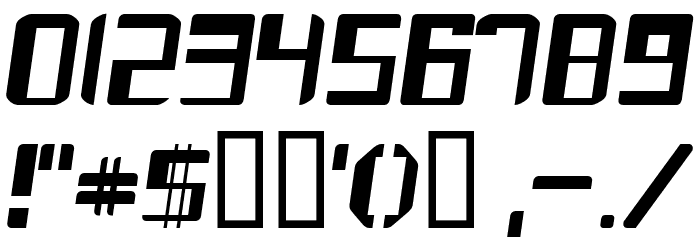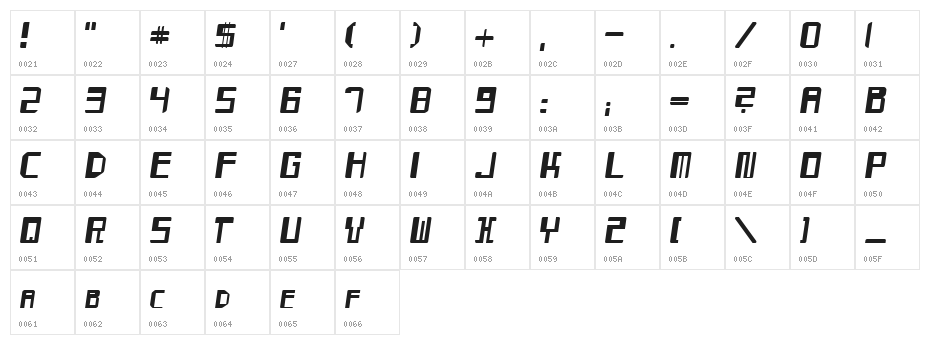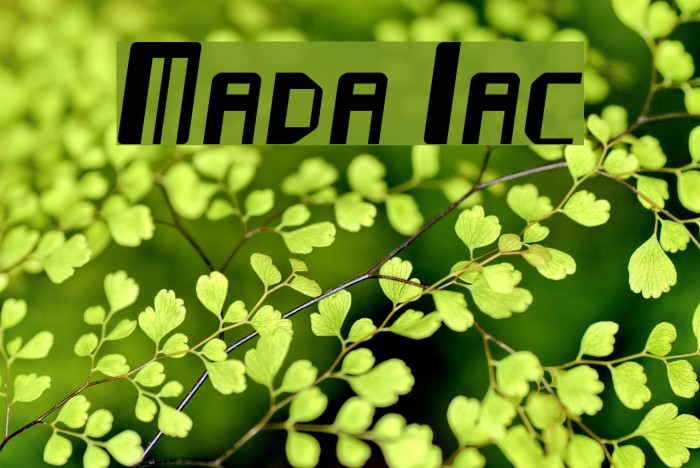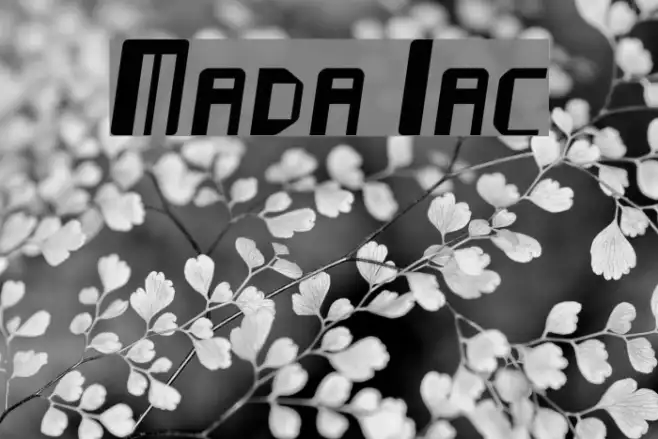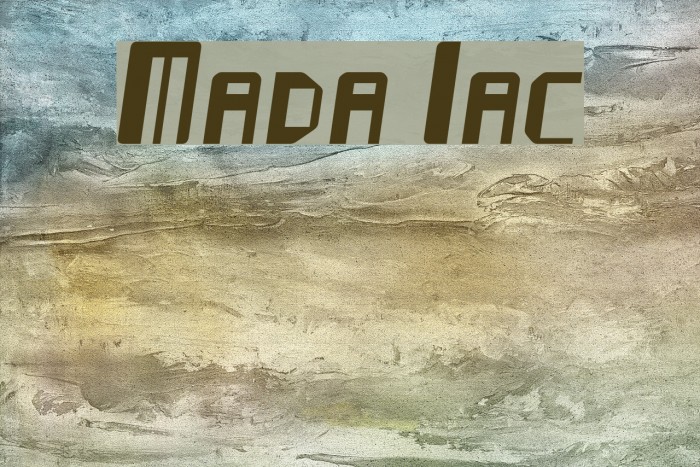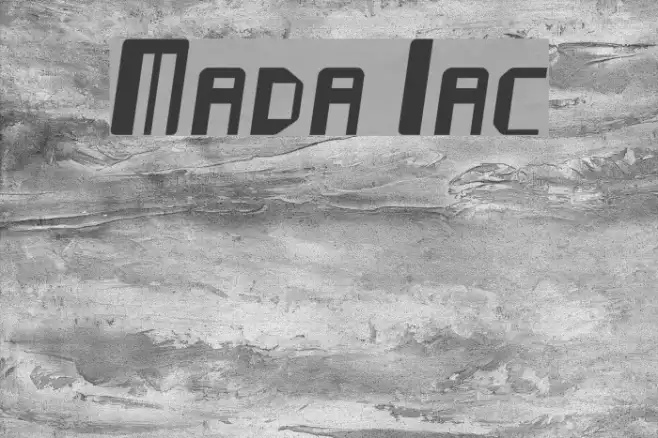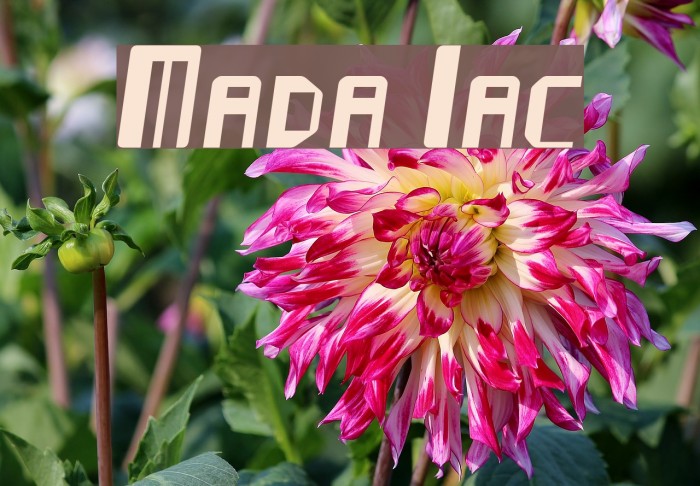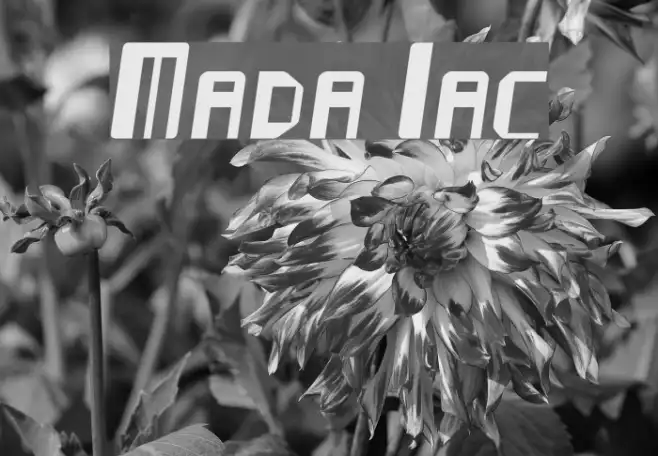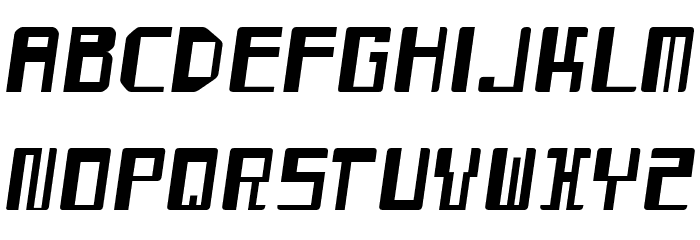
Mayday Italic Font
Mayday Italic Description
This font features a bold, italicized style with a futuristic and angular design. The characters are sharply defined with a distinct slant, giving them a dynamic and forward-moving appearance. The uppercase and lowercase letters maintain a consistent geometric structure, while the numerals and special characters complement the overall aesthetic. The font's unique style makes it stand out, with each character exhibiting a strong presence due to its thick strokes and italicized form. The angular cuts and edges contribute to a modern, tech-inspired look, making it suitable for projects that require a bold statement.
| Proposed Projects | Ideal for technology branding, sci-fi themed designs, video game titles, and modern advertising campaigns. |